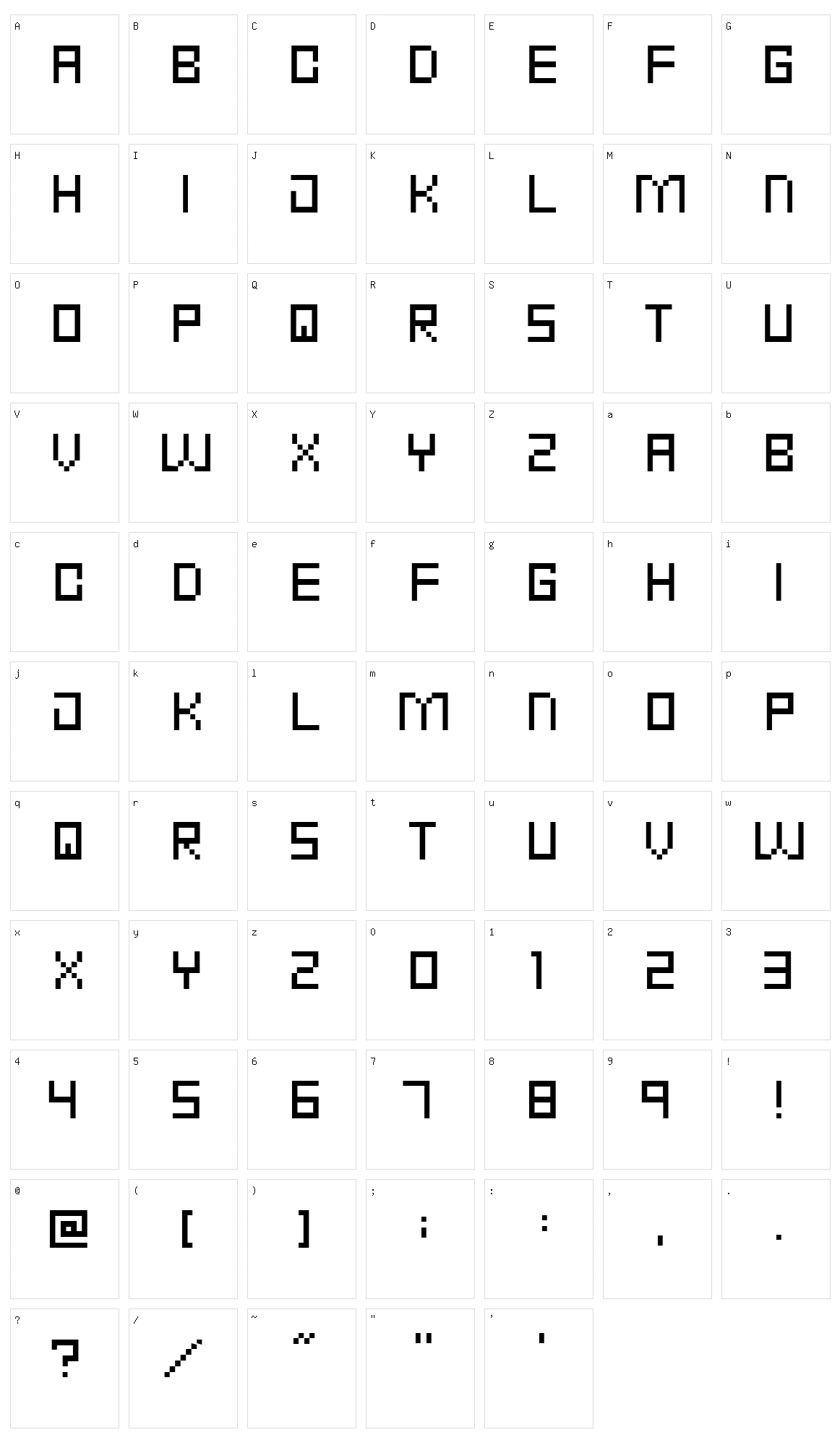
Punk Rock Font
This is the Punk Rock Font, its a bitmap. Use it in the size of 6 pts
with anti-aliasing off. You can also use it in bigger sizes.
Let your fantasies flow, laborate with it.